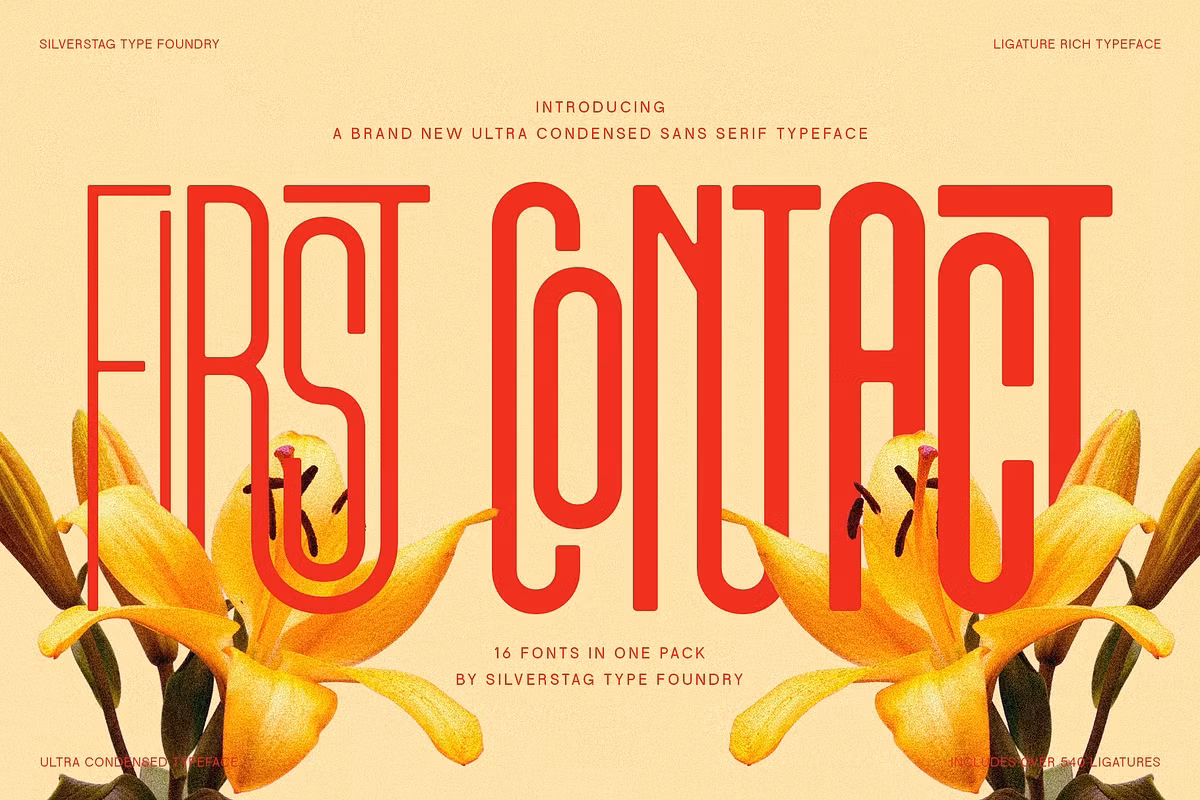
First Contact - 16 Fonts in One Pack Free Download
First Contact – 16 Fonts in One Pack Free Download
First Contact – 16 Fonts in One Pack Free Download is a diverse and comprehensive font bundle that includes 16 unique fonts, each offering its own distinct style. From bold, futuristic display fonts to sleek and minimalistic typefaces, this pack is perfect for a variety of design projects, including tech branding, sci-fi themes, social media content, product packaging, posters, and more.
With the variety in this font bundle, you have the flexibility to mix and match for different visual effects. Whether you're working on a bold headline or a clean, professional logo, First Contact – 16 Fonts in One Pack Free Download provides everything you need to make a statement.